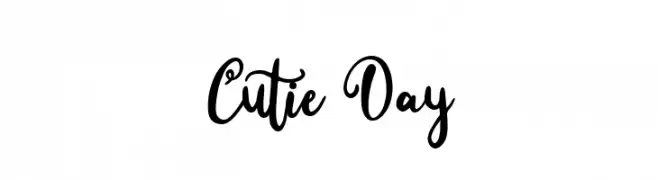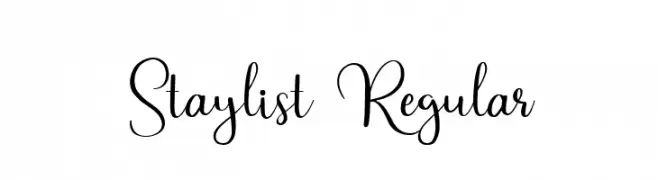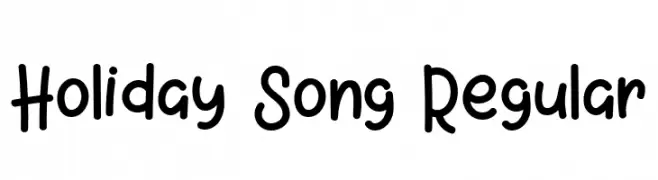
A playful, bold script font with a whimsical, handwritten style.
An elegant, cursive font with flowing, sophisticated characters.
A playful, handwritten script font with dynamic loops and smooth curves.
A playful, handwritten font with rounded, irregular letterforms.
A playful, handwritten font with rounded edges and a casual style.
A playful and whimsical script font with smooth, flowing curves.
A playful, handwritten script font with a whimsical style.
A playful and modern handwritten font with bold, flowing letterforms.
A cursive, elegant script font with high contrast and flowing lines.
An elegant, cursive font with flowing, elongated letterforms and a sophisticated style.